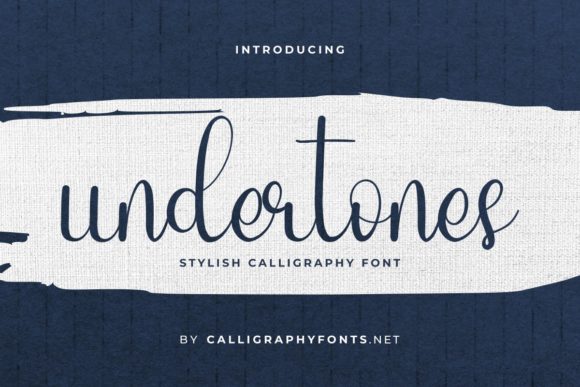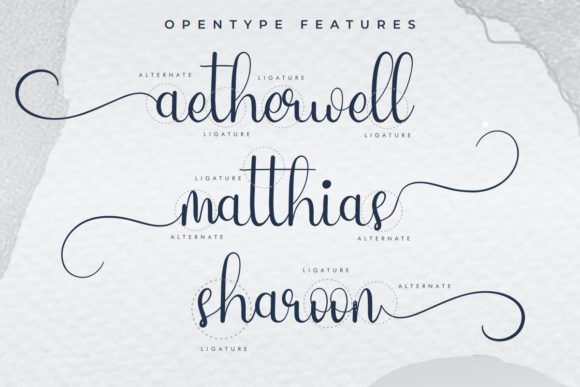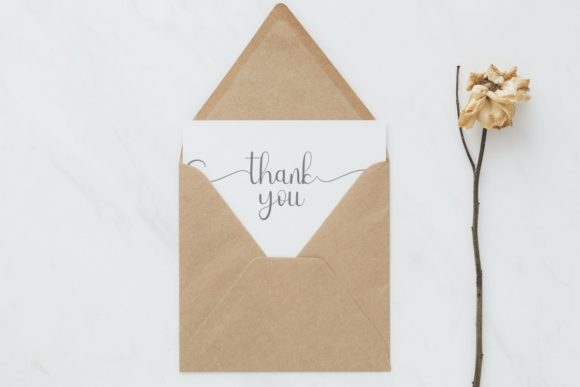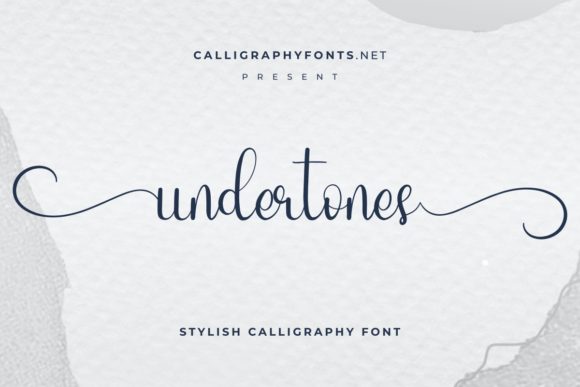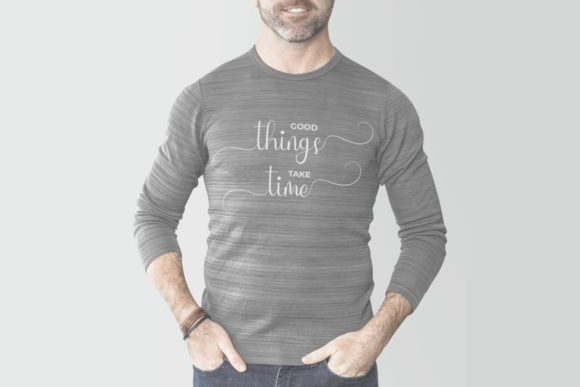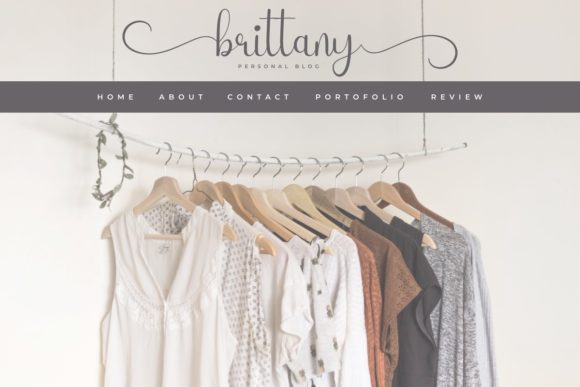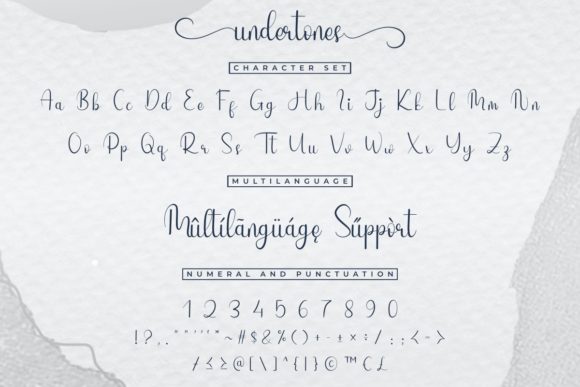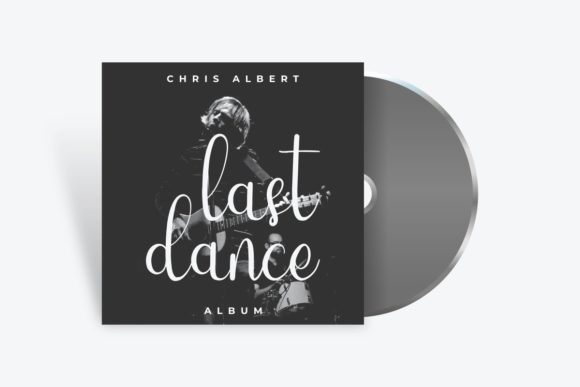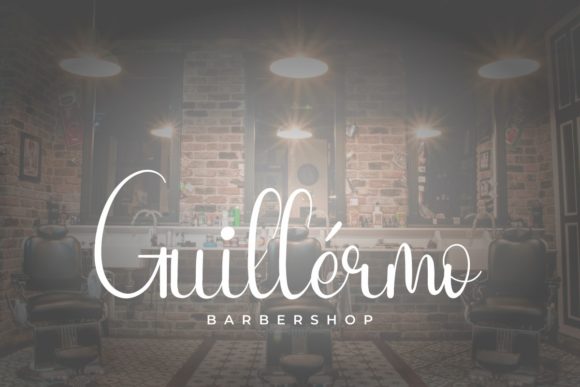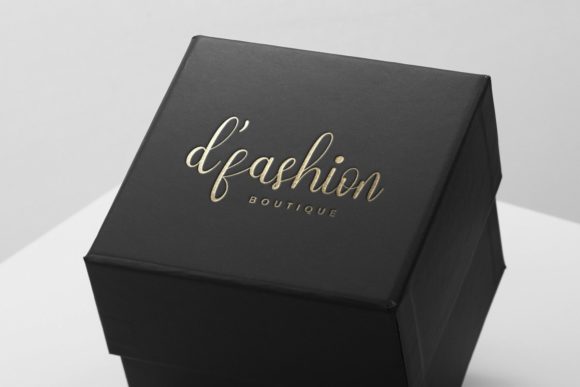
Undertones Font
About Undertones Font
Undertones is a flowing handwritten font, described by an elegant touch, perfect for your favorite projects. Fall in love with its incredibly distinct and timeless style and use it to create spectacular designs!